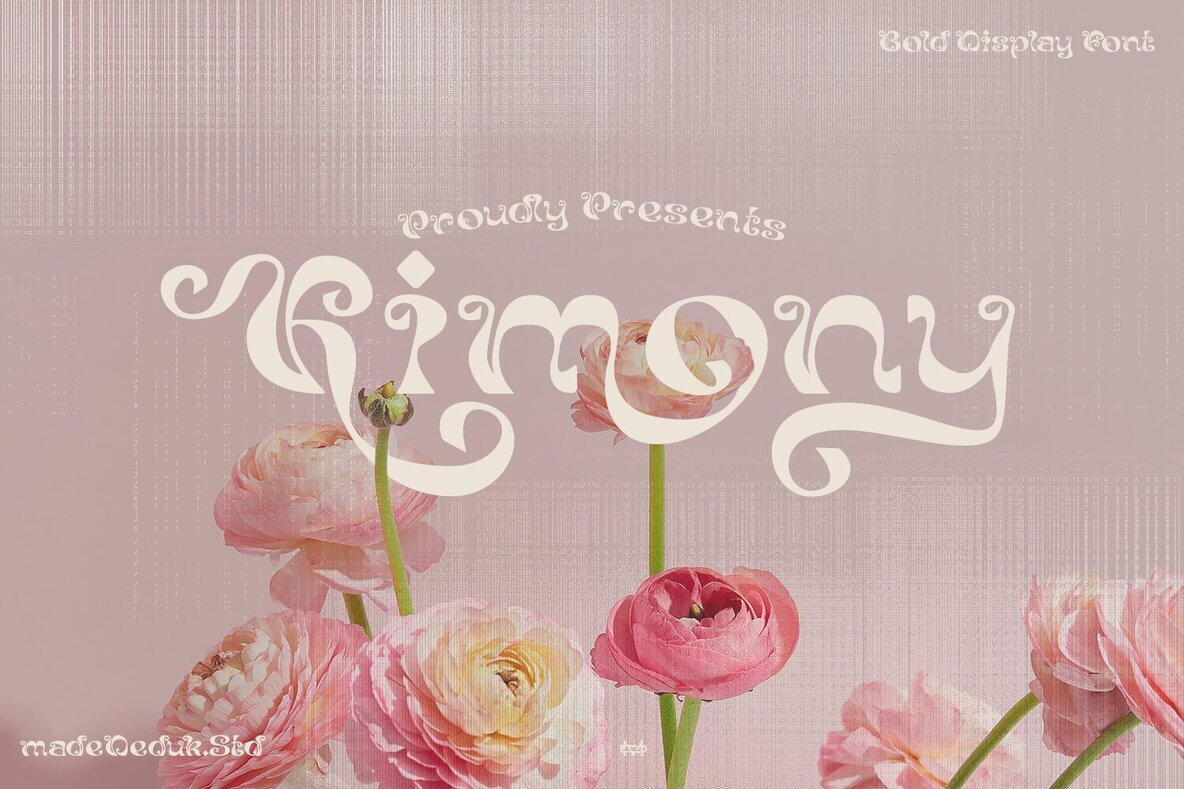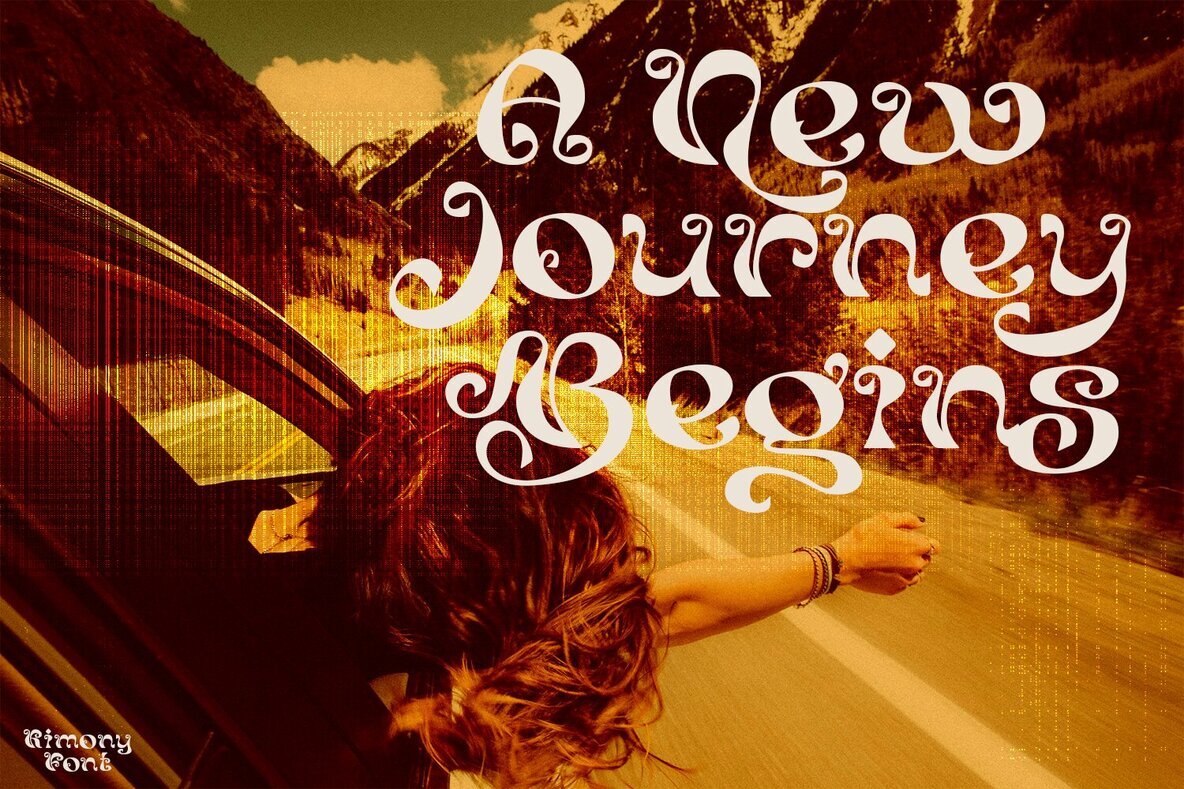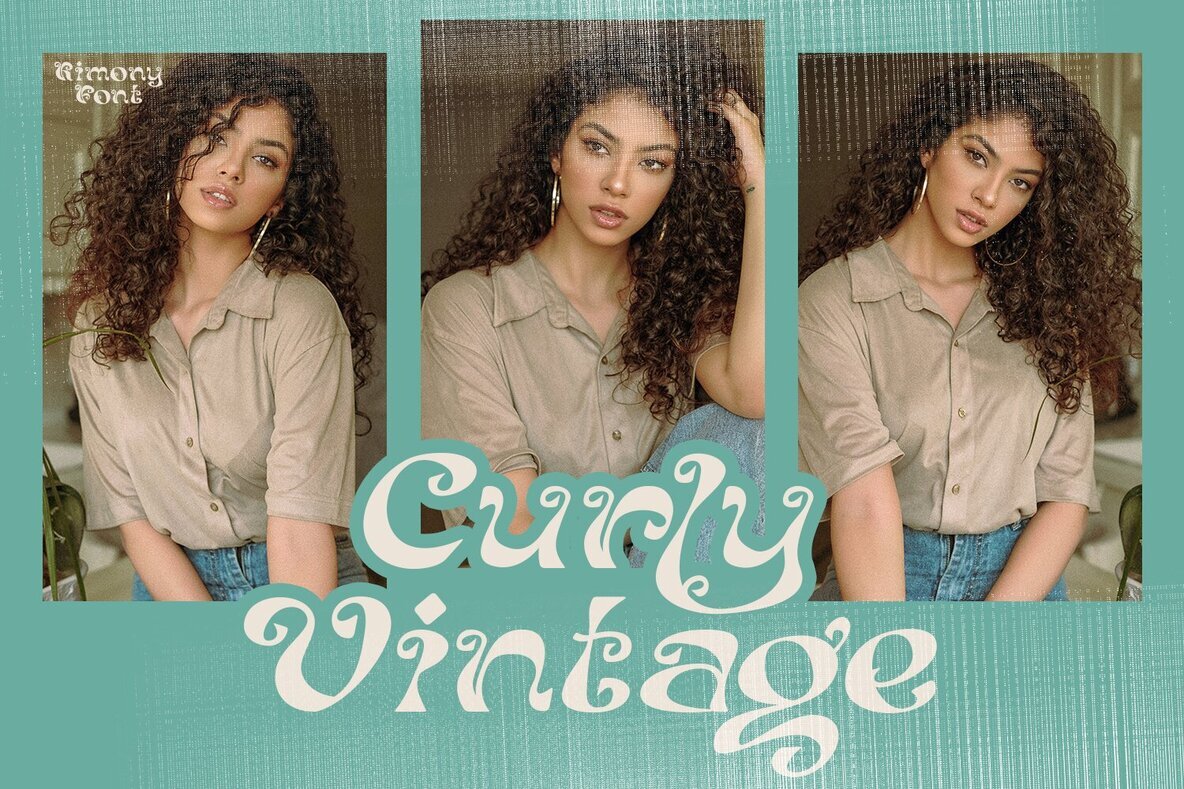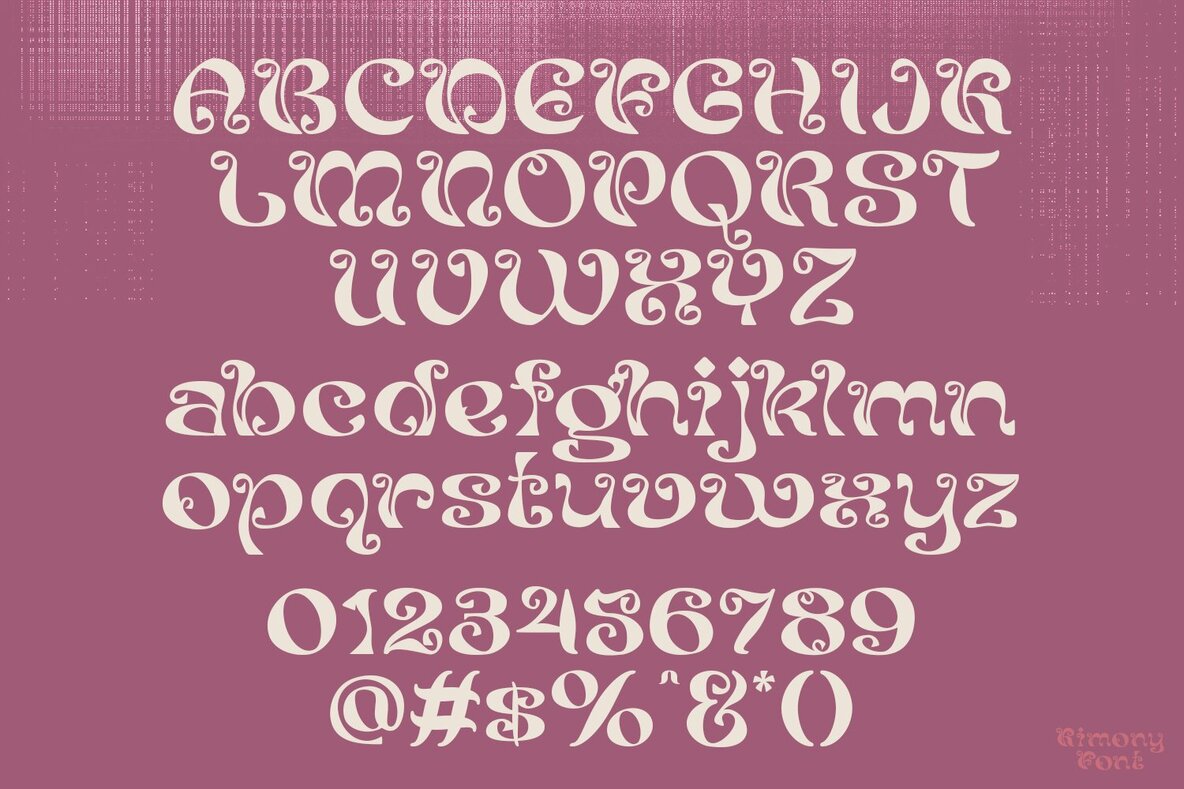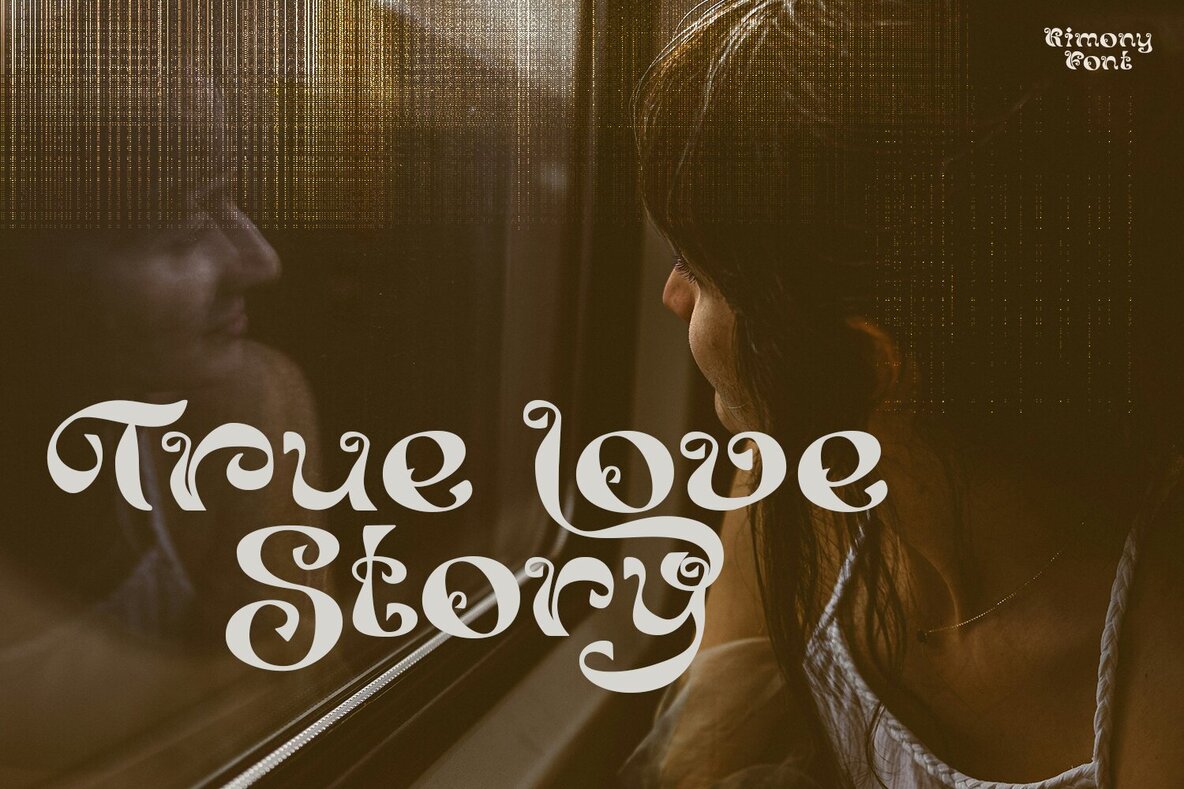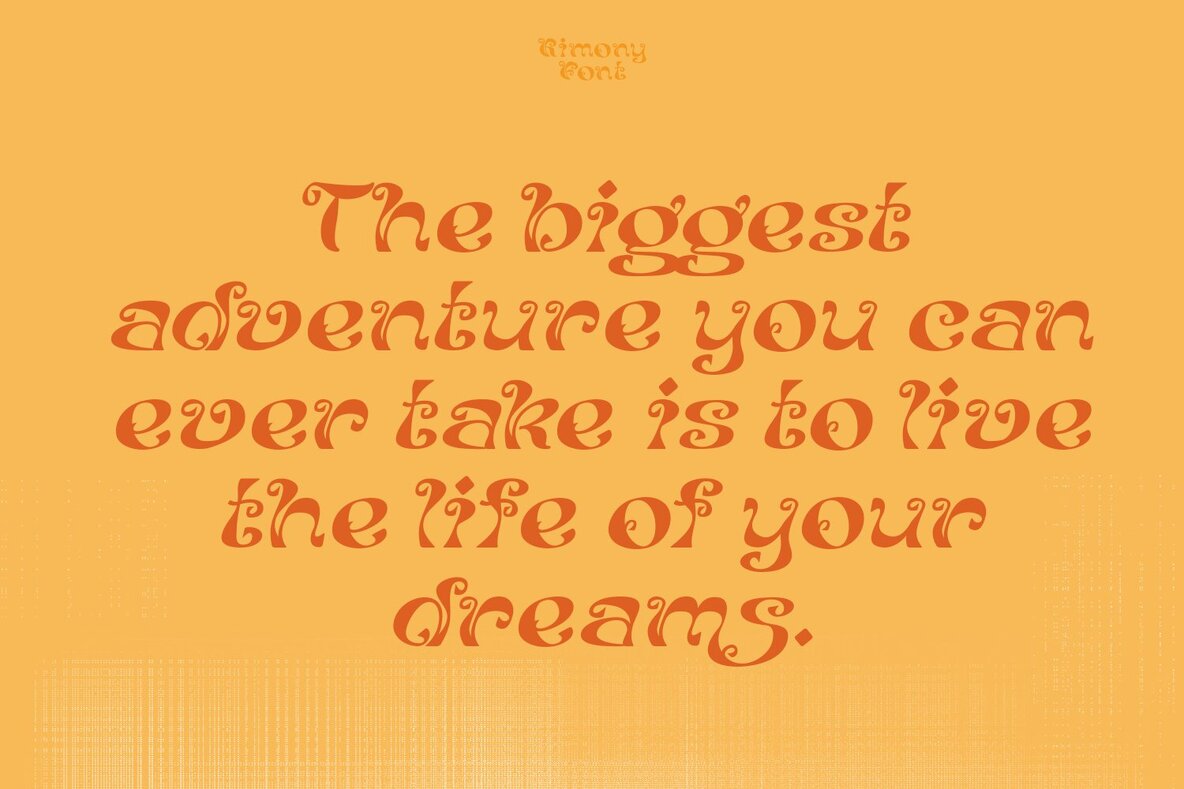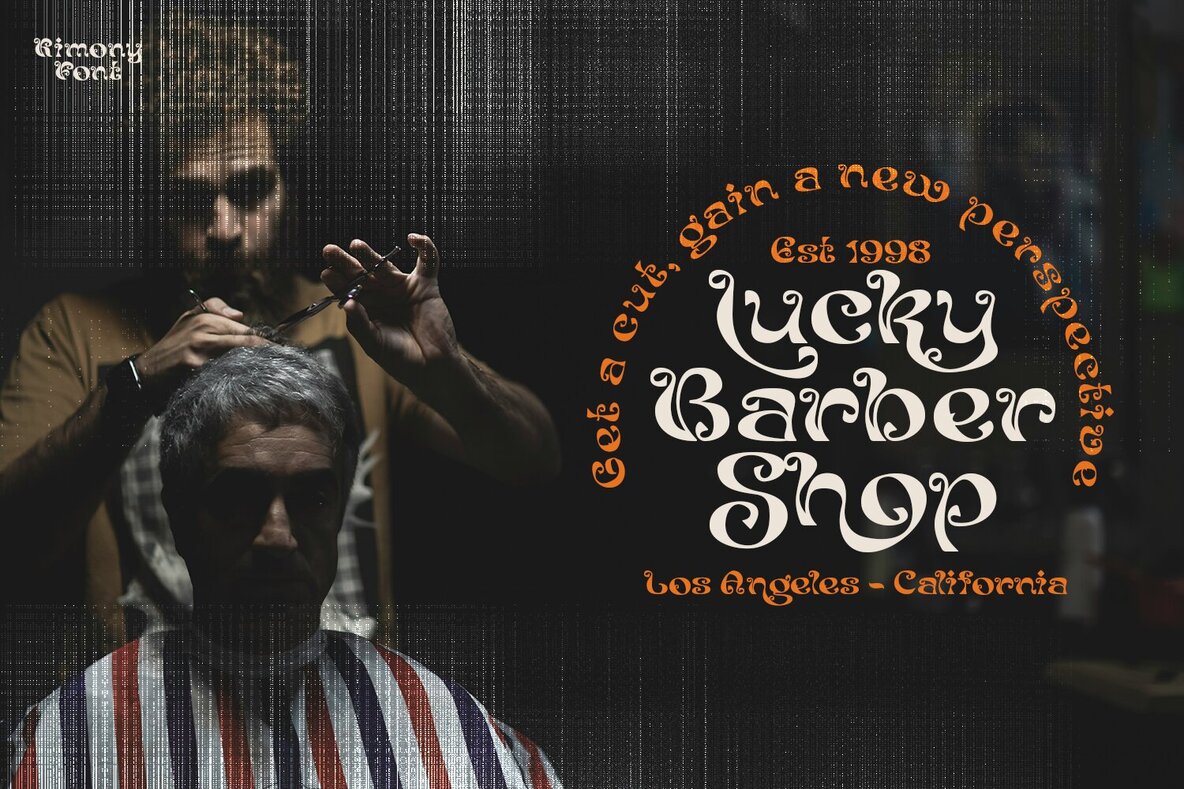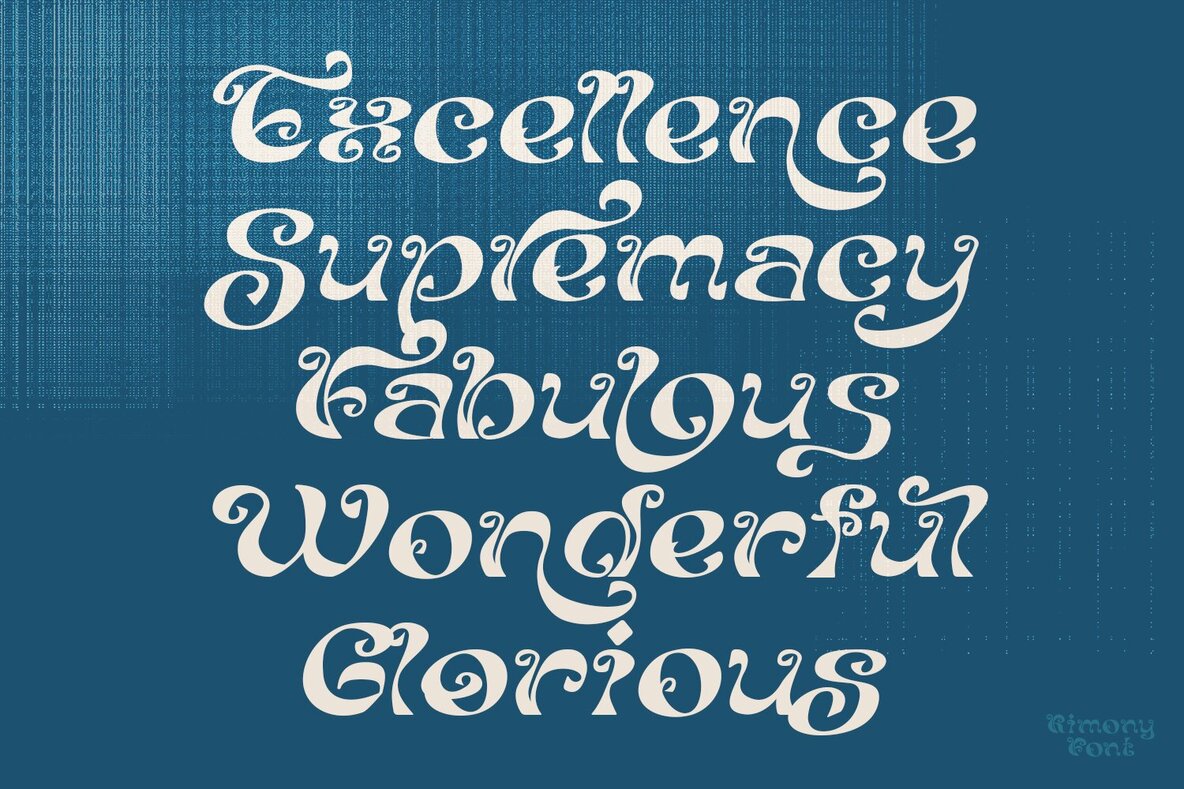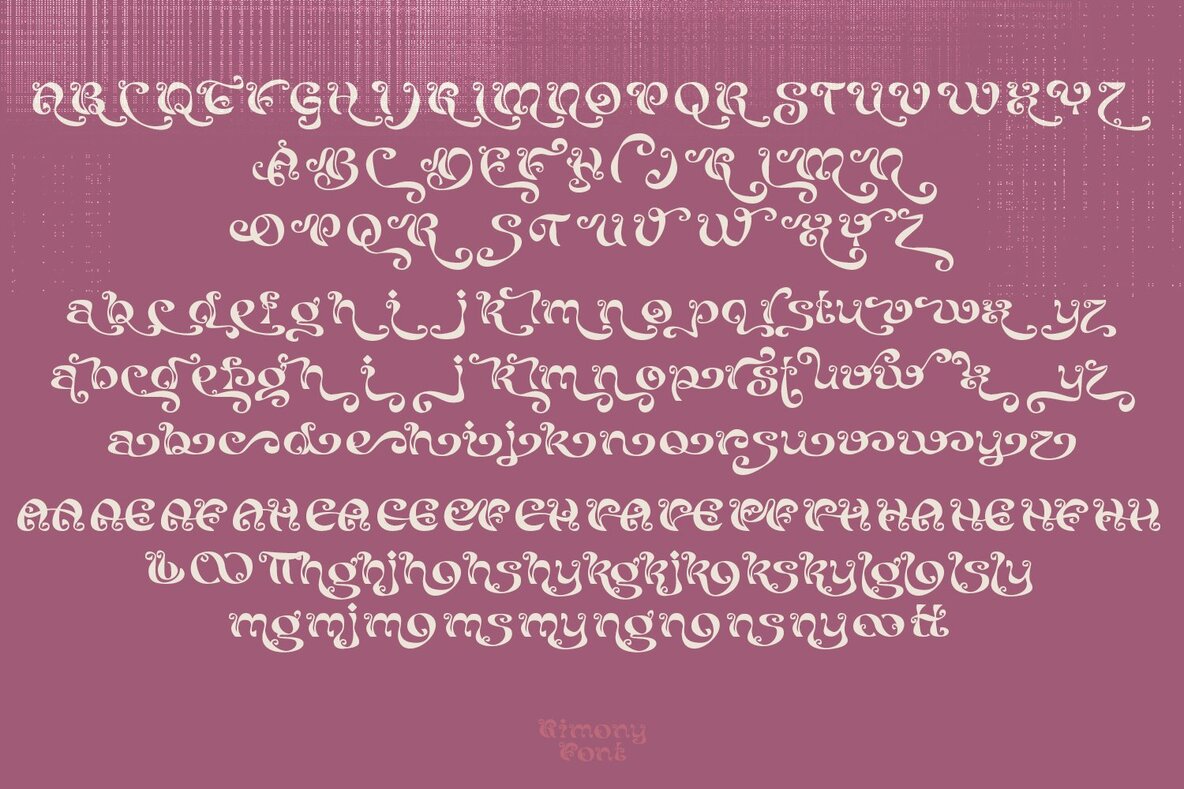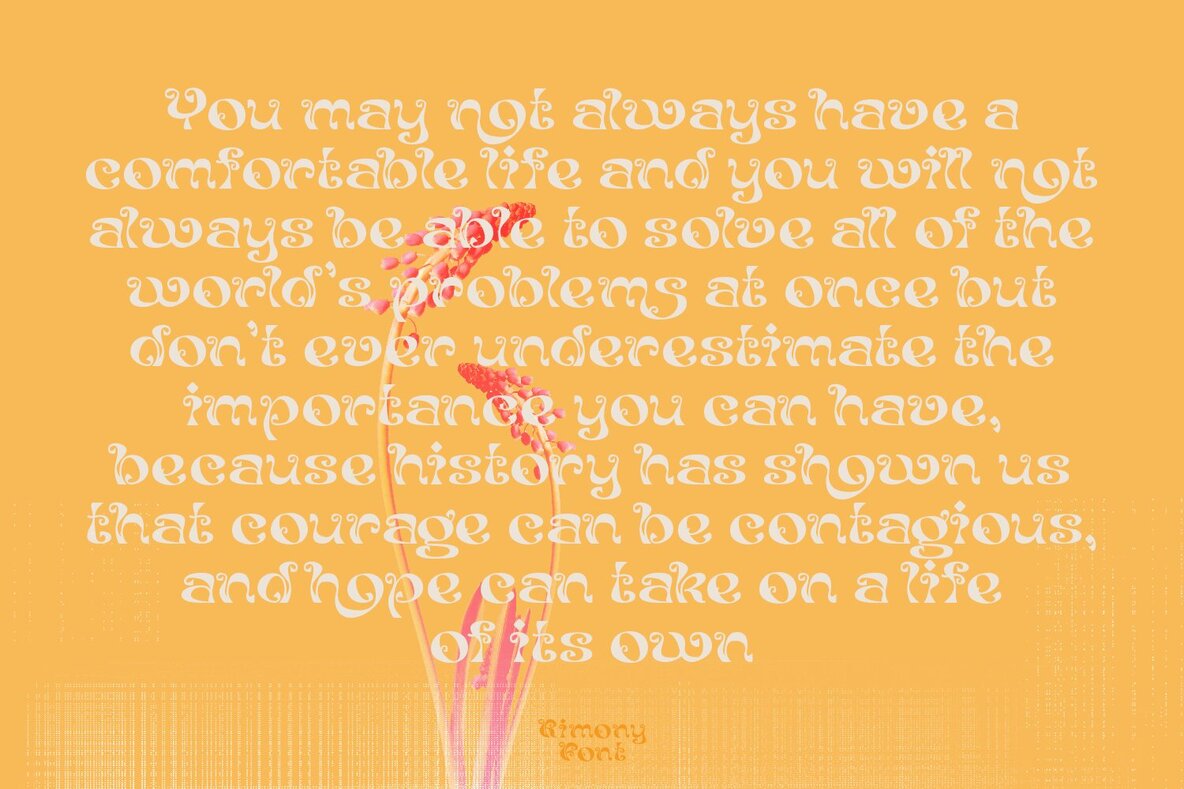
Kimony Font
Introducing Kimony, a striking bold display serif font that captures the essence of 70s typography with a vintage, high-contrast twist. This typeface is perfectly suited for high-end fashion and cultural projects. Kimony invites you to explore and creatively combine designs inspired by the past. With its classic style, Kimony offers a refined touch to any display purpose. Ideal for adding a hint of vintage elegance to your designs.Kimony Font: The Bold Display Typeface
Versatile Uses